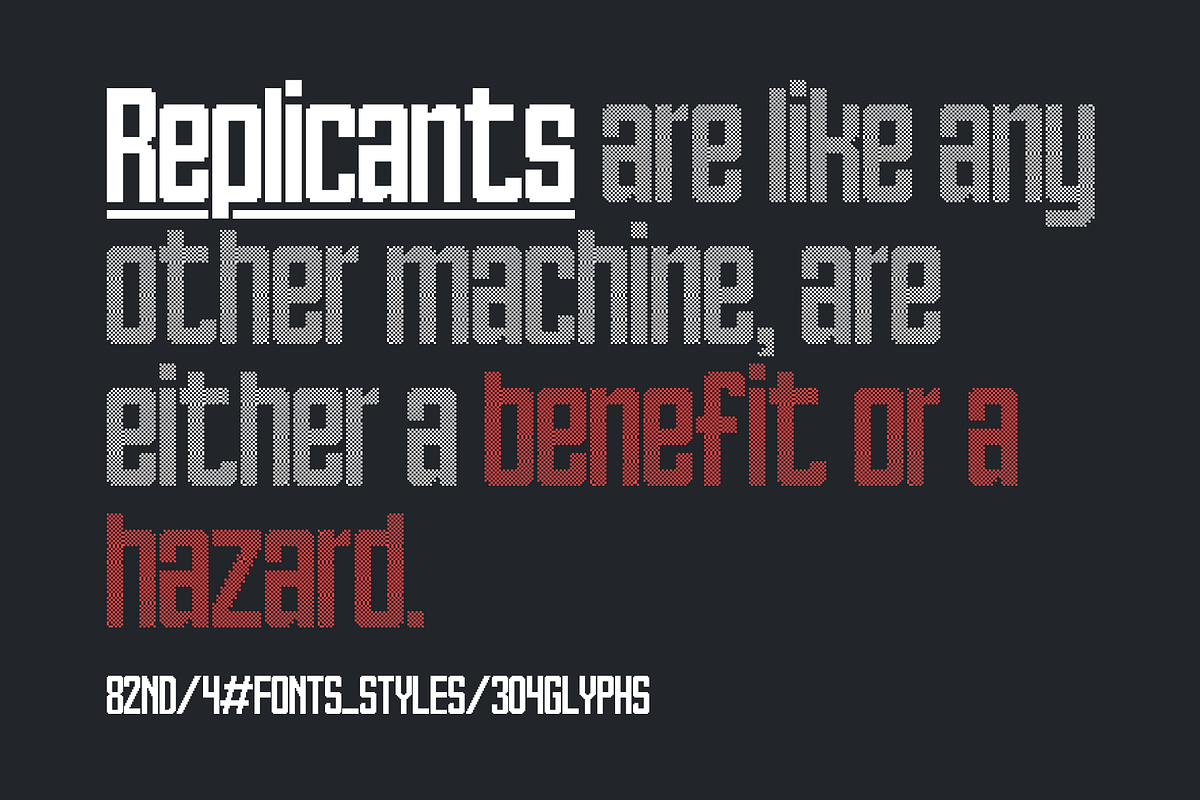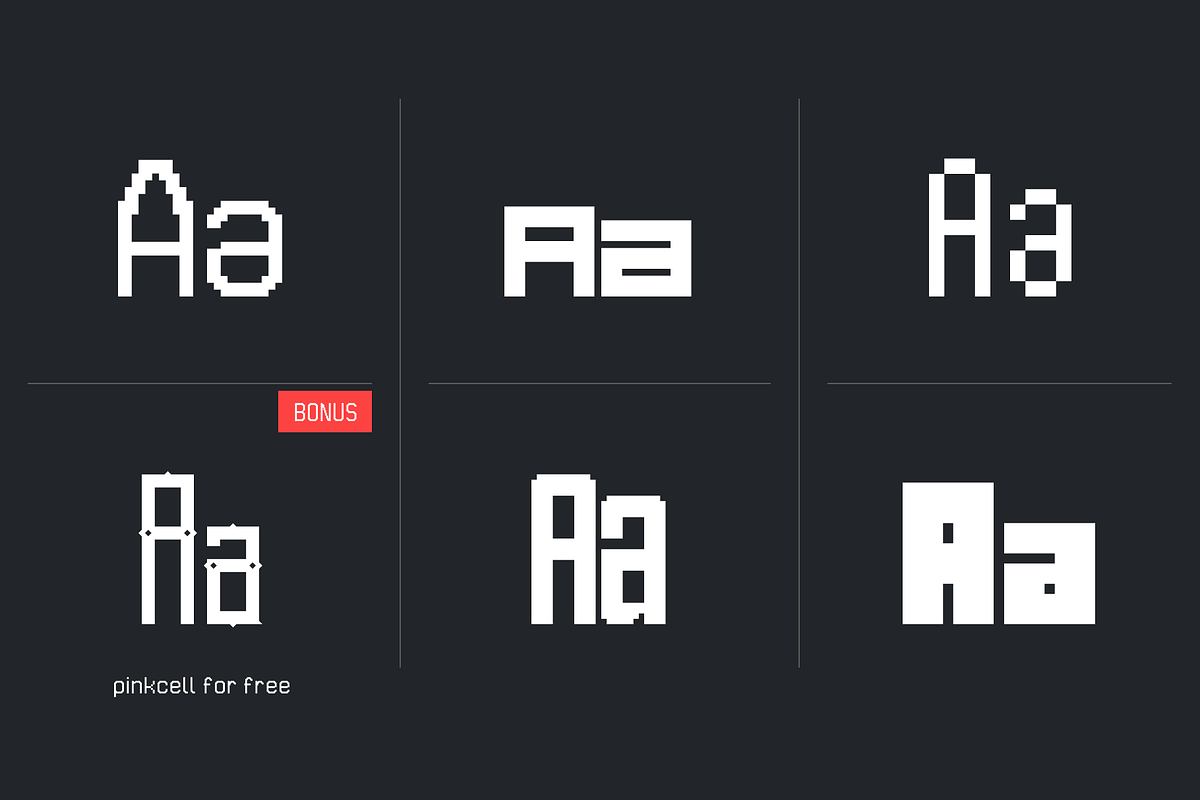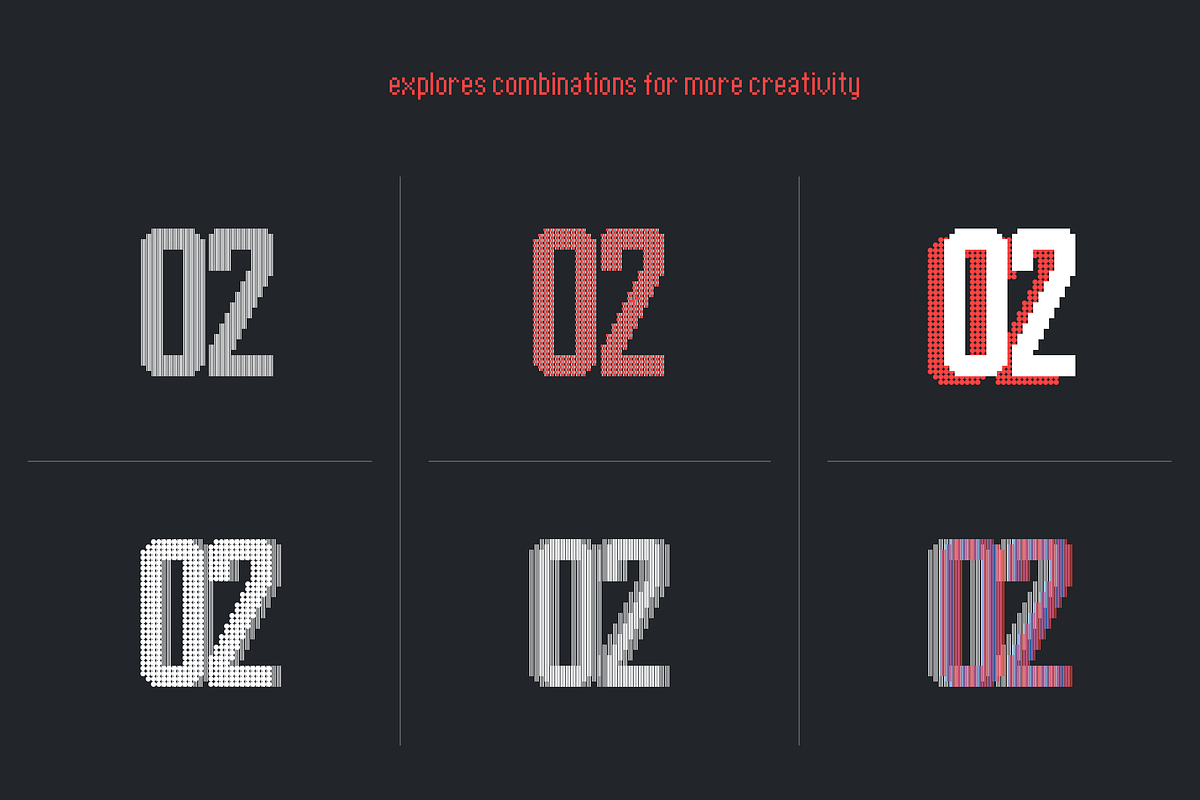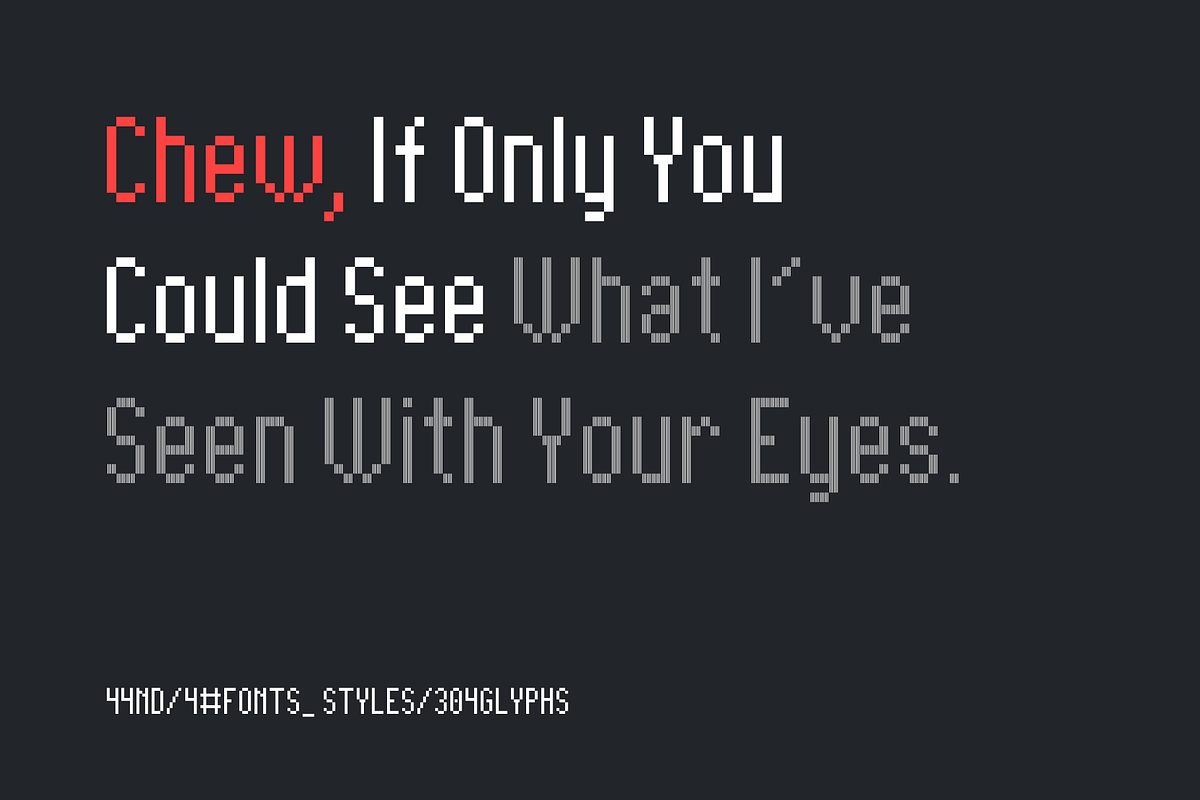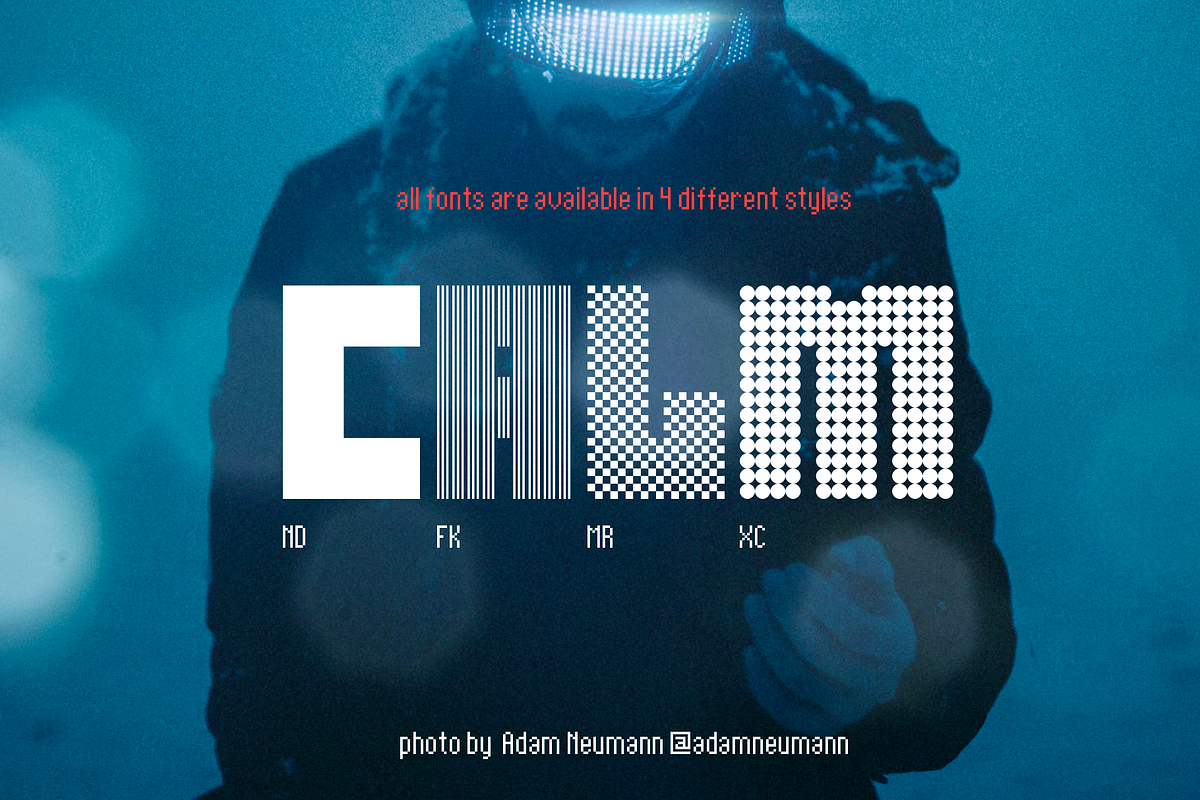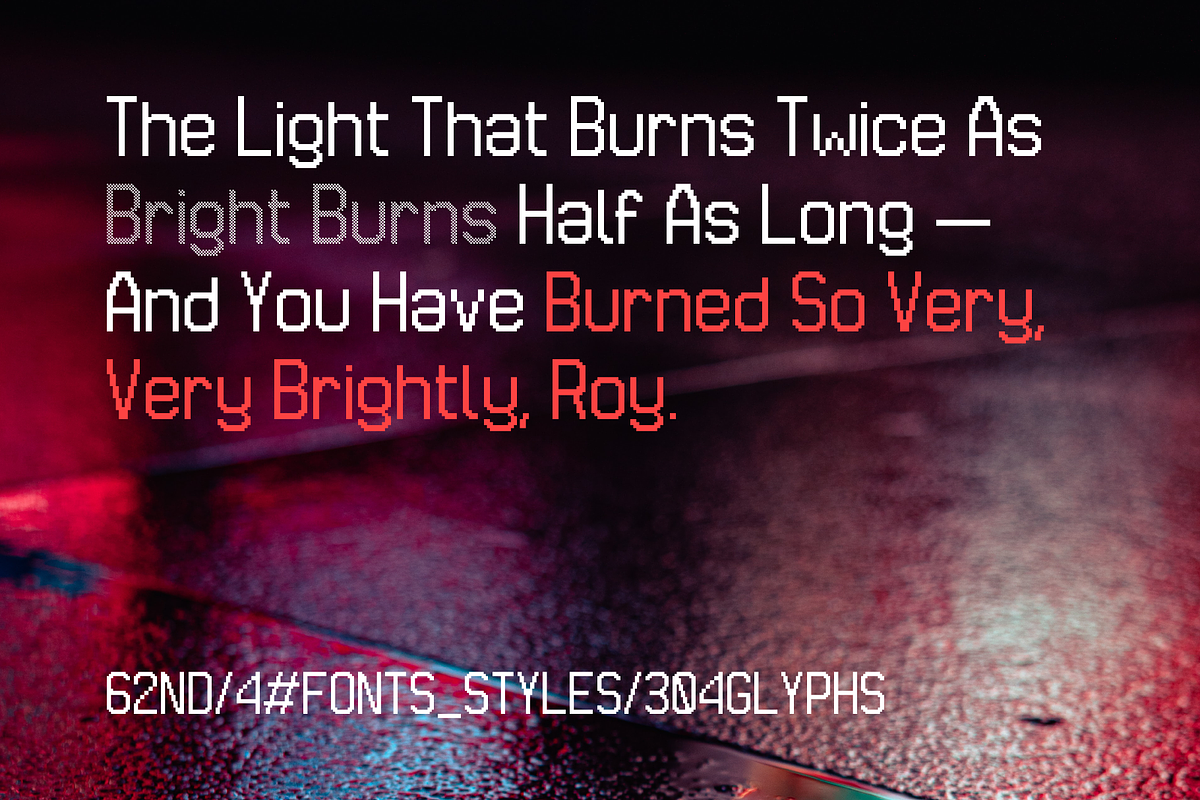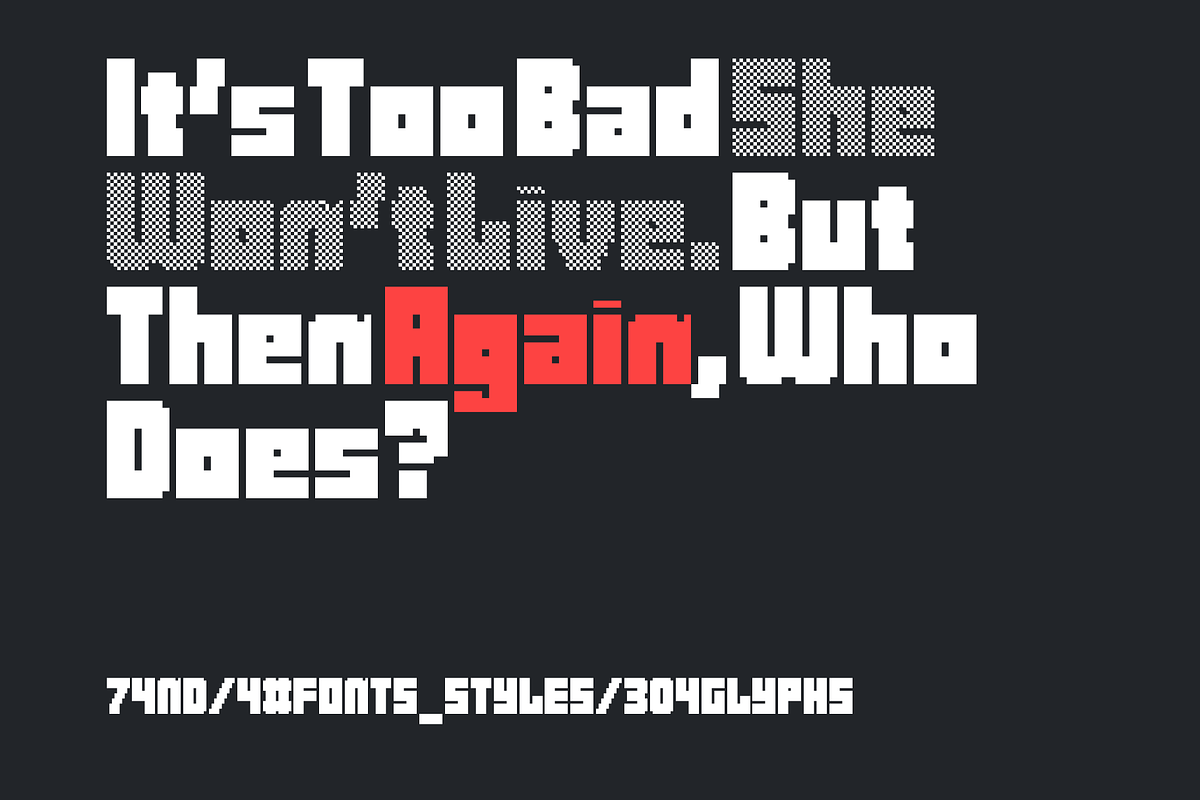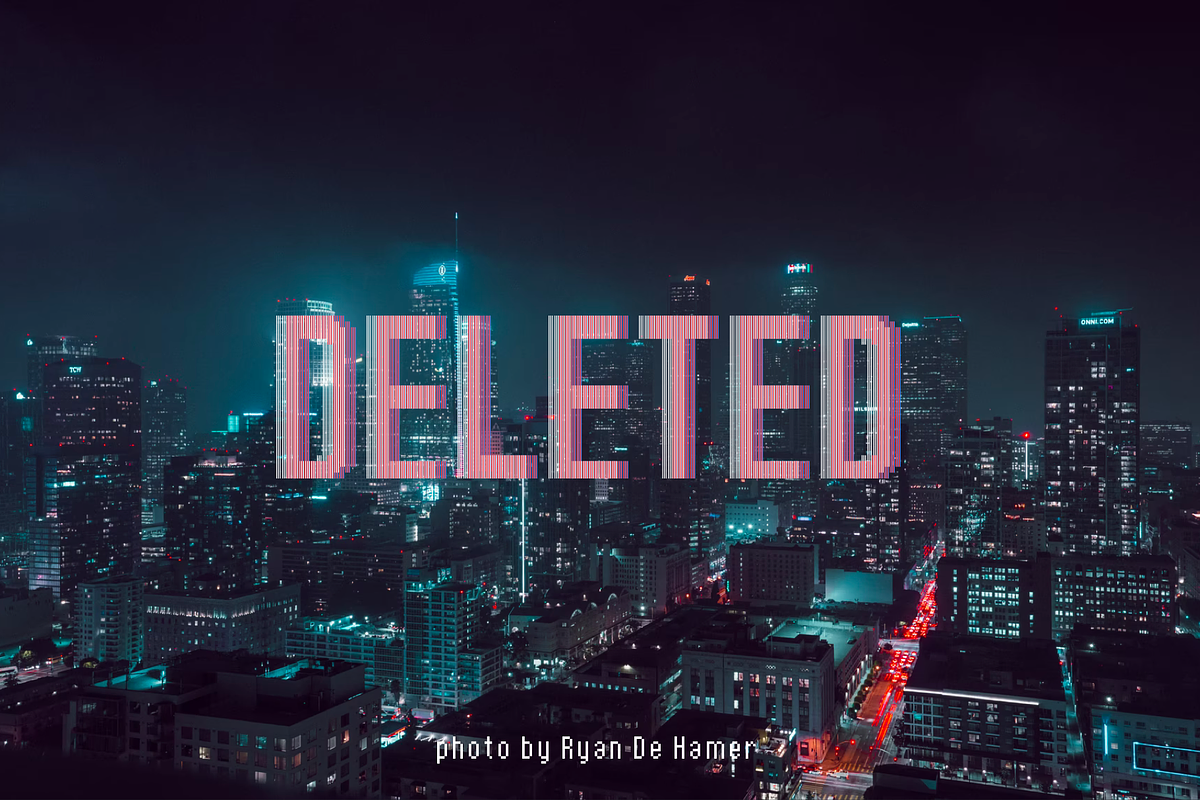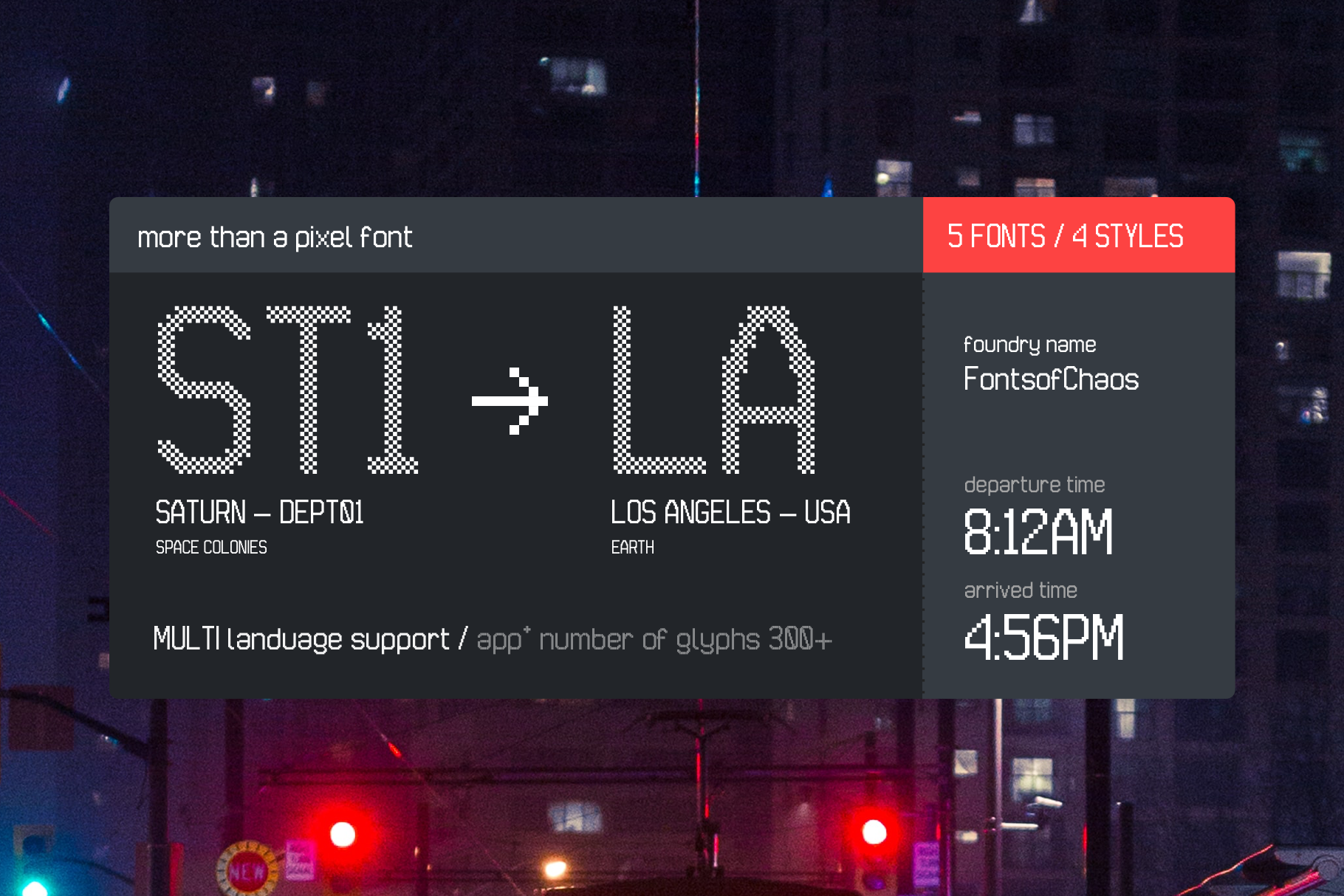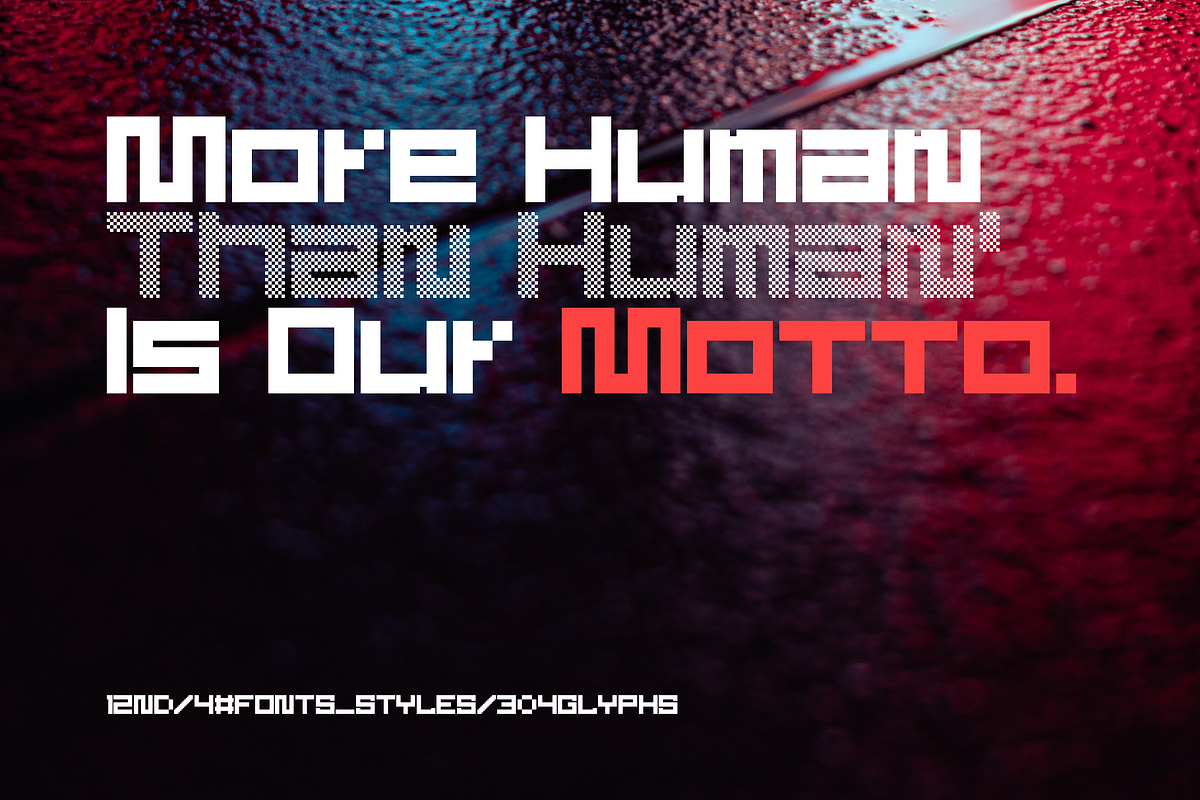
Futr Pack Promo = 5 fonts + 4 styles
Futr is a set of 5 fonts in 4 different styles.
Originally developed as a suite of pixel fonts then the choice was to make a complete set that can meet multiple demands both in the video game industry and the film industry or printing.
The variant 44 and 62 have been developed to be readable and recognizable in very small type while keeping a unique style that differentiates them from the usual pixel typos. The 12 and 74 variants are more graphic for composition.
Each of these variants has over 300 glyphs for use in most languages.
Pinkcell is a typeface released in 2011 that we designated for the same purpose and is offered with the pack. Attention, it includes only one style.